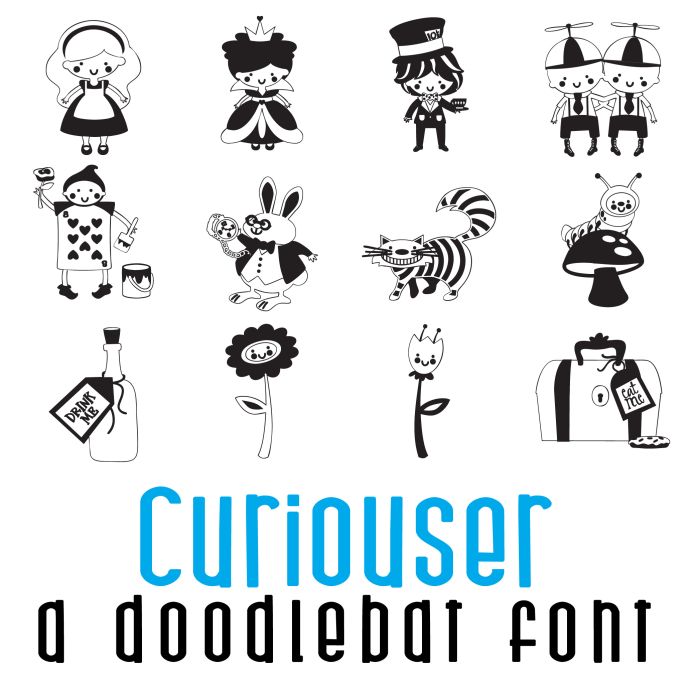
This doodlebat font features 26 adorable characters from your favorite fairytale. Perfect for cards, crafts, gifts, decor, scrapbook pages, planner stickers, classrooms and more!